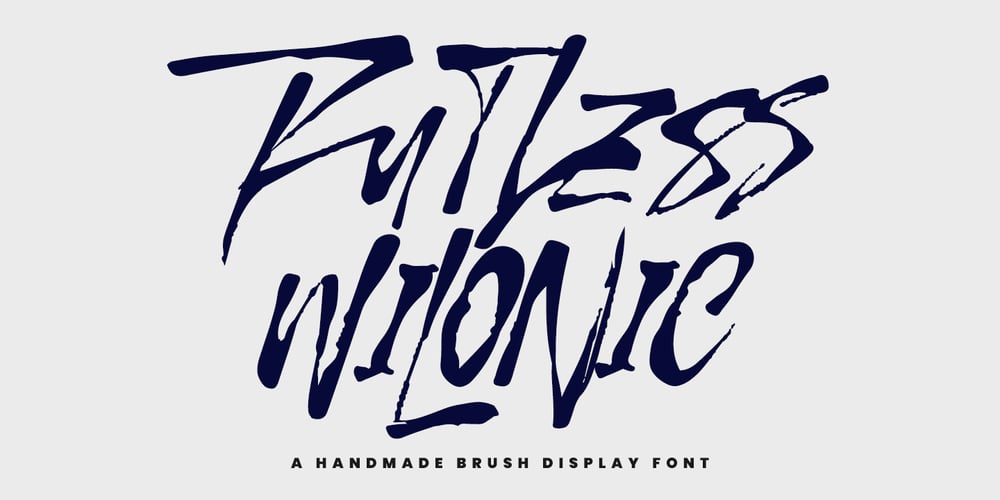
MC Ruthless Wilonic Font Family was designed by Gilang Maulana and published by Maulana Creative. MC Ruthless Wilonic contains 1 styles and family package options. Give your designs an authentic brush handcrafted feel. “Ruthless Wilonic Handmade Brush Display Font” is perfectly suited to signature, stationery, logo, typography quotes, magazine or book cover, website header, flyer, clothing, branding, packaging design and more.